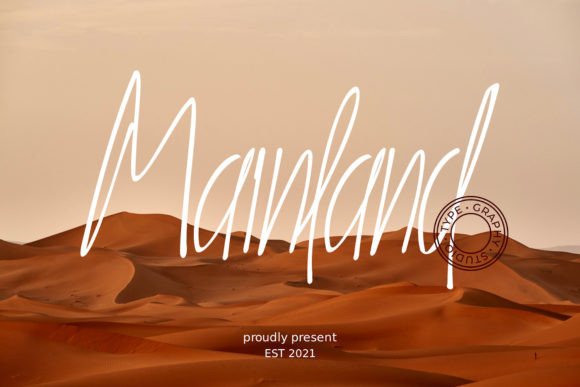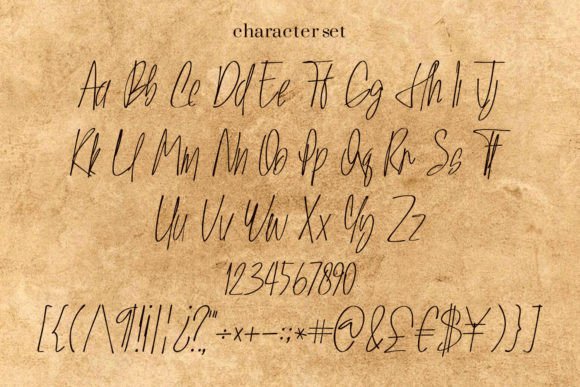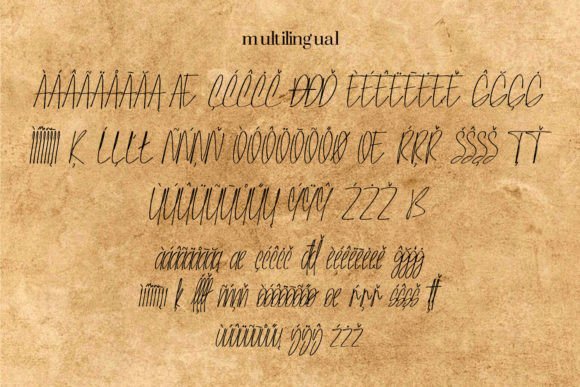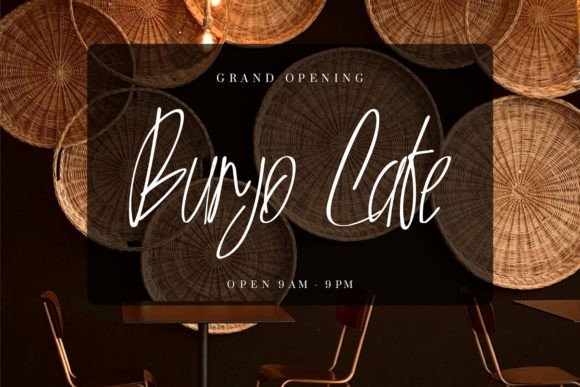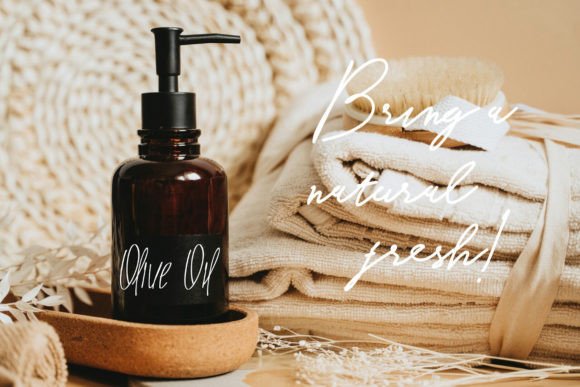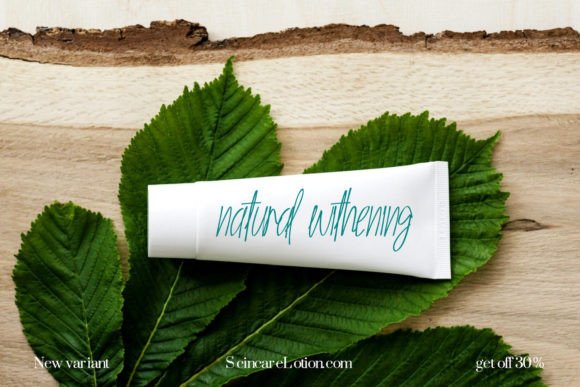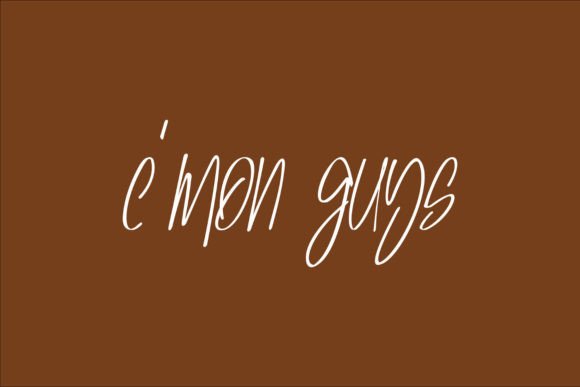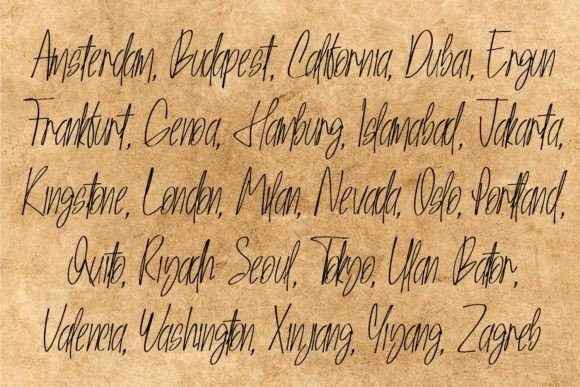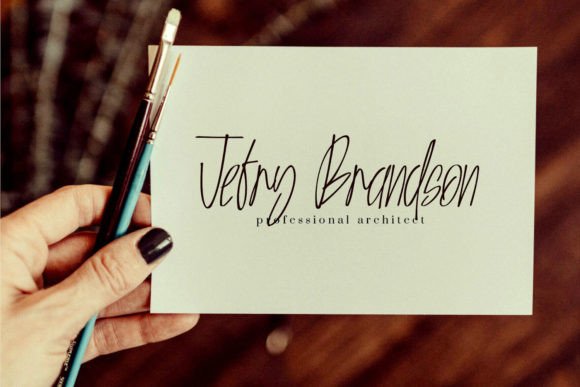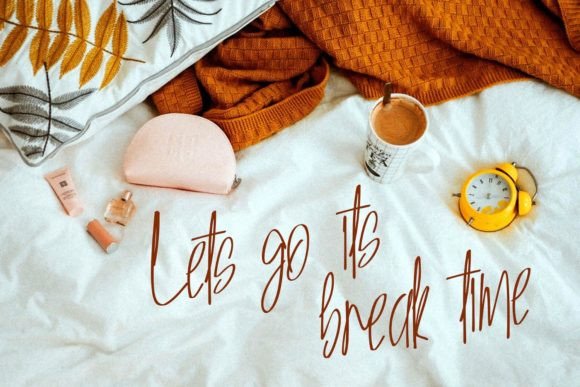
Mainland Font
About Mainland Font
“Mainland” is more than just a font; it’s a dazzling script typeface that adds a touch of elegance and sophistication to your designs. Neatly crafted and highly detailed, this font stands out as a wonderful asset in your font library, with the potential to enhance a wide range of creations.
The elegance of “Mainland” is evident in its beautifully crafted script style. The font exudes a sense of sophistication and attention to detail, making it suitable for various design applications. Whether you’re working on branding, invitations, or other creative projects, “Mainland” brings a touch of refinement to your designs.
The versatility of “Mainland” is showcased by its ability to enhance a broad spectrum of creations. Its dazzling and highly detailed nature makes it a perfect choice for projects that require a polished and sophisticated aesthetic. This font becomes a reliable asset for designers seeking a typeface that can elevate the overall aesthetics of their work.
Adding “Mainland” to your font collection becomes an invitation to explore the sophisticated and detailed side of design. The font stands out as a beautiful asset that can enhance the visual appeal of your projects. Let it be the font that brings a sense of refinement to your branding, invitations, and various other creative endeavors.
In summary, “Mainland” is not just a font; it’s a dazzling script typeface designed to be a wonderful asset in your font library. Embrace its elegance and sophistication, and confidently add it to your collection. “Mainland” is an invitation to explore the enhanced possibilities it brings to your design projects.